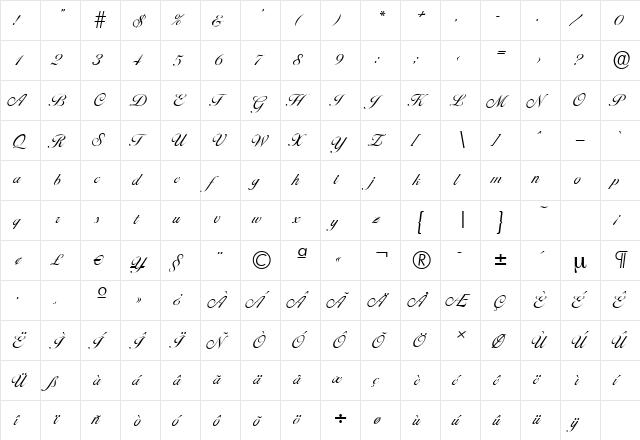
BallantinesSerial-Light Regular Font Preview
BallantinesSerial-Light Regular
BallantinesSerial-Light Regular Font Details
Design Context for BallantinesSerial-Light Typeface
BallantinesSerial-Light takes a measured approach to typography — its balanced proportions and neutral character make it a reliable workhorse for both digital and print work. Its slender proportions lend an understated elegance to any composition.